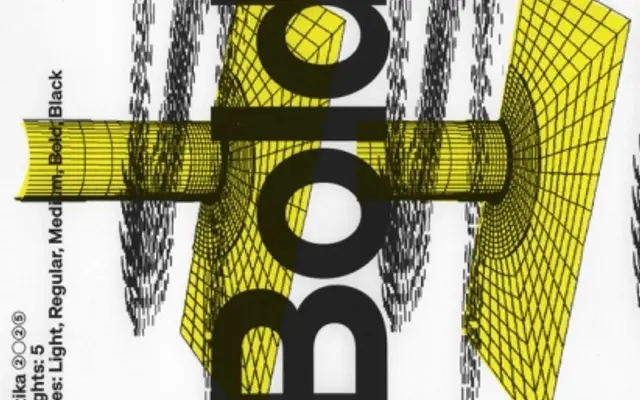
Statika
Brownfox · Anne Büttner
A grotesque sans by Anne Büttner spanning eleven weights with italic companions and a monospaced variant, covering Latin and Cyrillic across 72 languages.
Designed by Anne Büttner and released by Brownfox, Statika runs from Light to Black with italics at each weight and a separate Mono subfamily for technical settings. The family covers 72 languages across Latin and Cyrillic scripts, making it a capable choice for multilingual editorial and interface work. The specimen leans on scientific and radio-frequency copy, suggesting a sensibility suited to technical and instructional contexts.
A contemporary grotesque with a monospaced companion; the upright forms and extended weight range place it firmly in the grotesque sans-serif tradition.